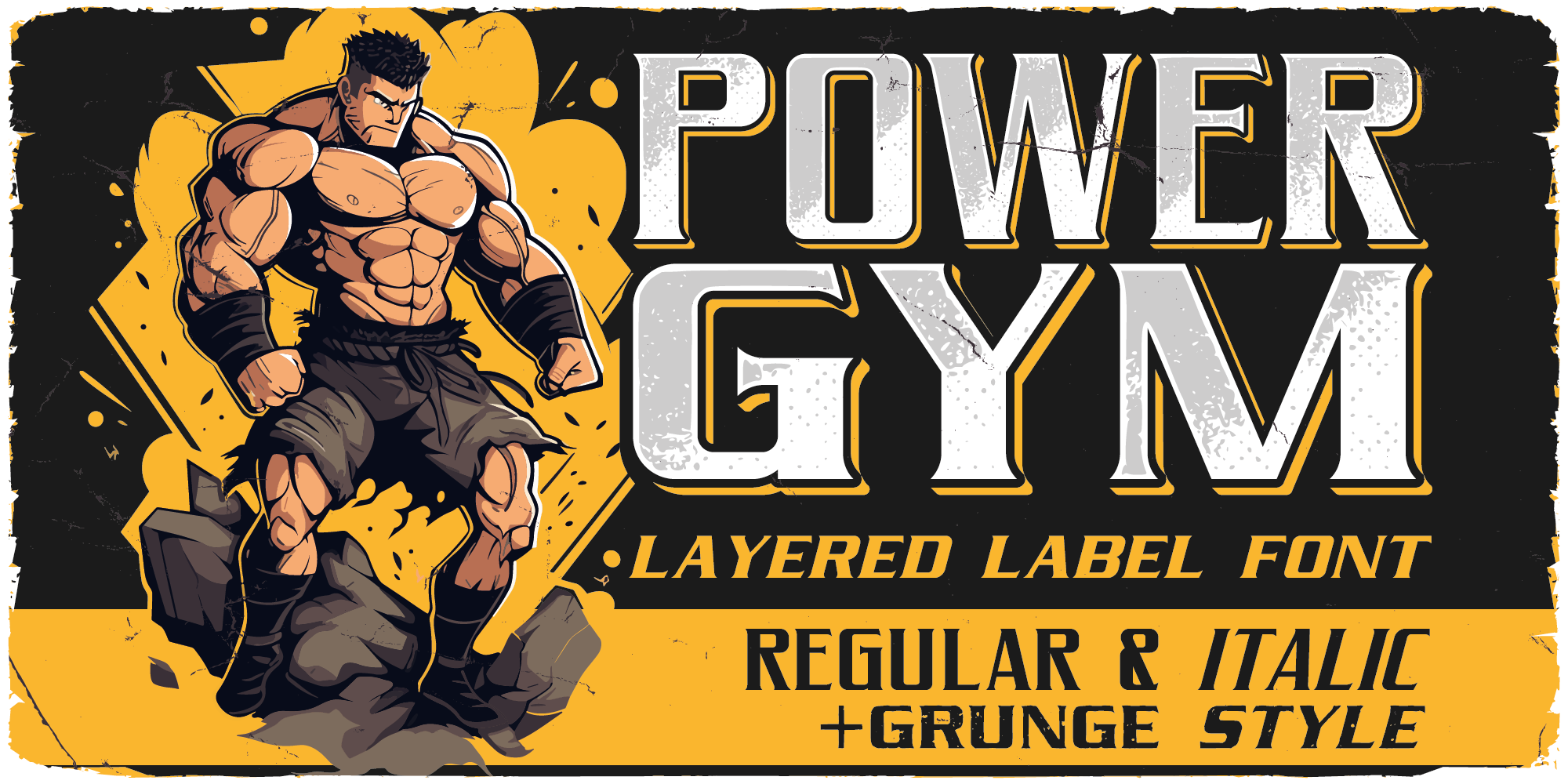
Power GYM Font is perfect for fitness design projects including bodybuilding gyms, strength training centers, fitness equipment manufacturers, personal trainer branding, workout supplement companies, athletic performance centers, powerlifting competitions, and high-intensity fitness campaigns. This muscular typeface excels in CrossFit boxes, weightlifting facilities, sports nutrition brands, fitness coaching services, and projects that celebrate physical strength, athletic performance, and the dedication to fitness excellence.
What makes Power GYM Font exciting is its robust athletic character that perfectly captures the essence of physical strength and fitness determination. The font features bold letterforms with muscular styling that reflects the power and intensity of serious strength training and athletic performance. Its strong design elements embody the spirit of physical excellence and fitness dedication, making it perfect for projects that need to convey strength, motivation, and connection to fitness culture. The carefully crafted powerful proportions create an atmosphere of athletic authenticity and fitness sophistication.
Power GYM Font comes in multiple family variations including muscular, strong, athletic, and intense styles. Each weight maintains the distinctive fitness character while offering different levels of strength intensity and athletic presence. The font family includes fitness alternates, power ligatures, and athletic variations that provide designers with comprehensive options for creating truly powerful and authentically fitness-inspired typographic compositions that celebrate physical excellence.
Whether you're designing fitness branding, creating athletic marketing materials, or developing strength promotional graphics, Power GYM Font Free Download provides the perfect typographic foundation for projects that celebrate fitness excellence and athletic sophistication. This remarkable typeface transforms ordinary text into compelling expressions of fitness wisdom and athletic power. Download this strong font today and strengthen your design projects with the fitness authenticity and athletic energy that captures the essential spirit of physical training and bodybuilding excellence.